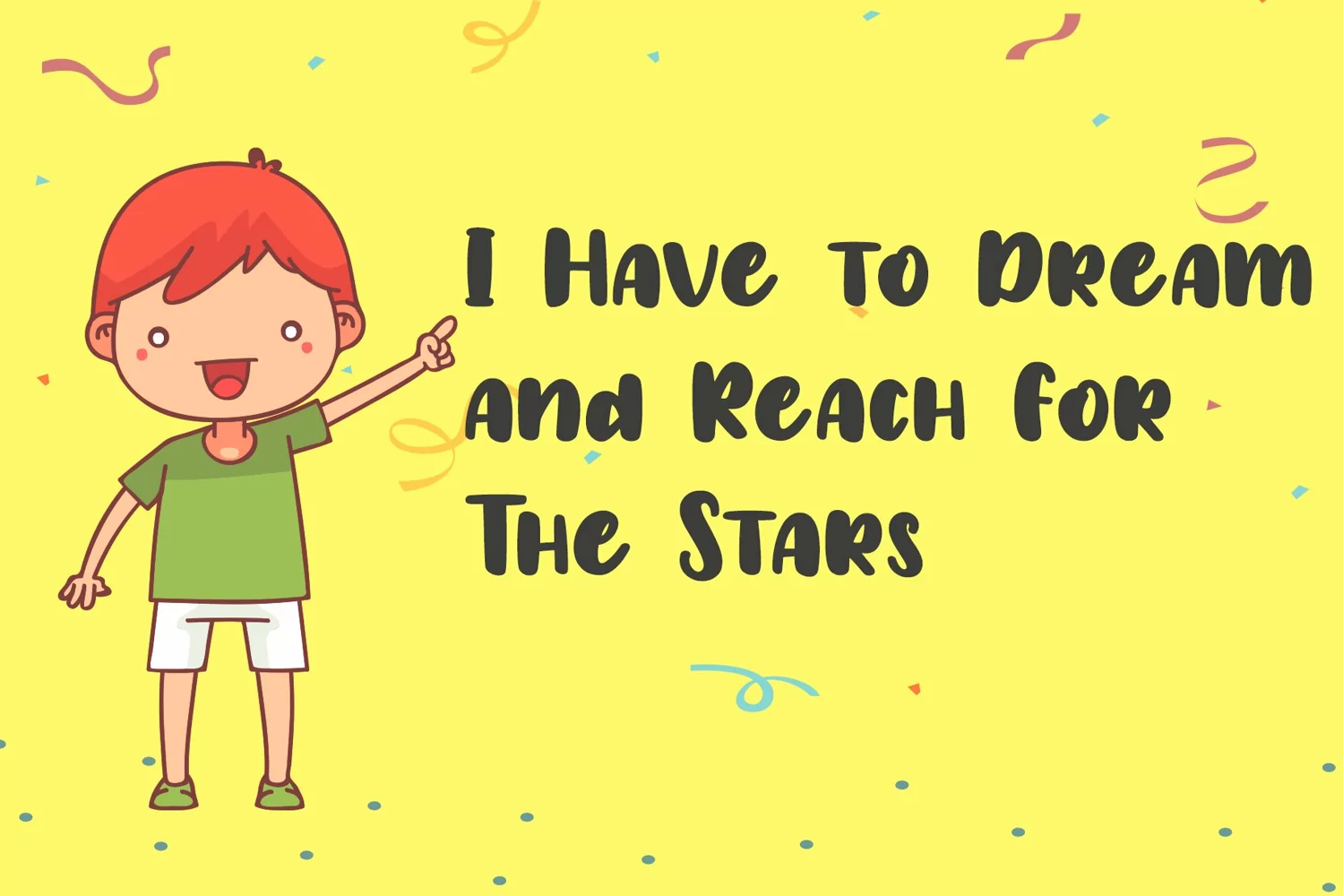
Proudly presents our font Scott Room.
Scott Room is a playful and cute font, carefully handcrafted to become a true favorite.
Multilingual Support
Alternate Character
Ligature Character